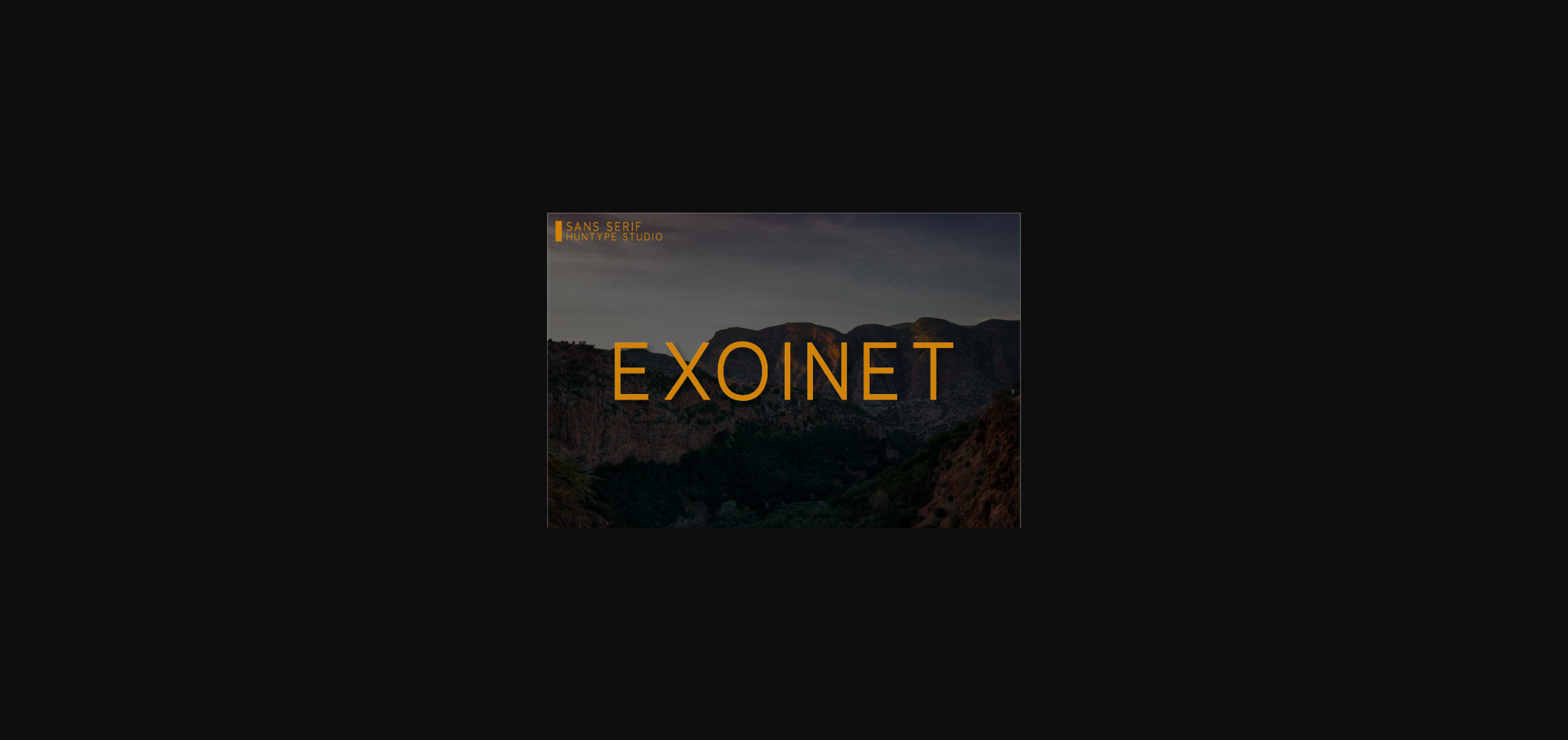
Exoinet is a thin and tall lettered sans serif font. It has identical letters which makes this font incredibly versatile, fitting a wide spectrum of designs, both formal and informal.